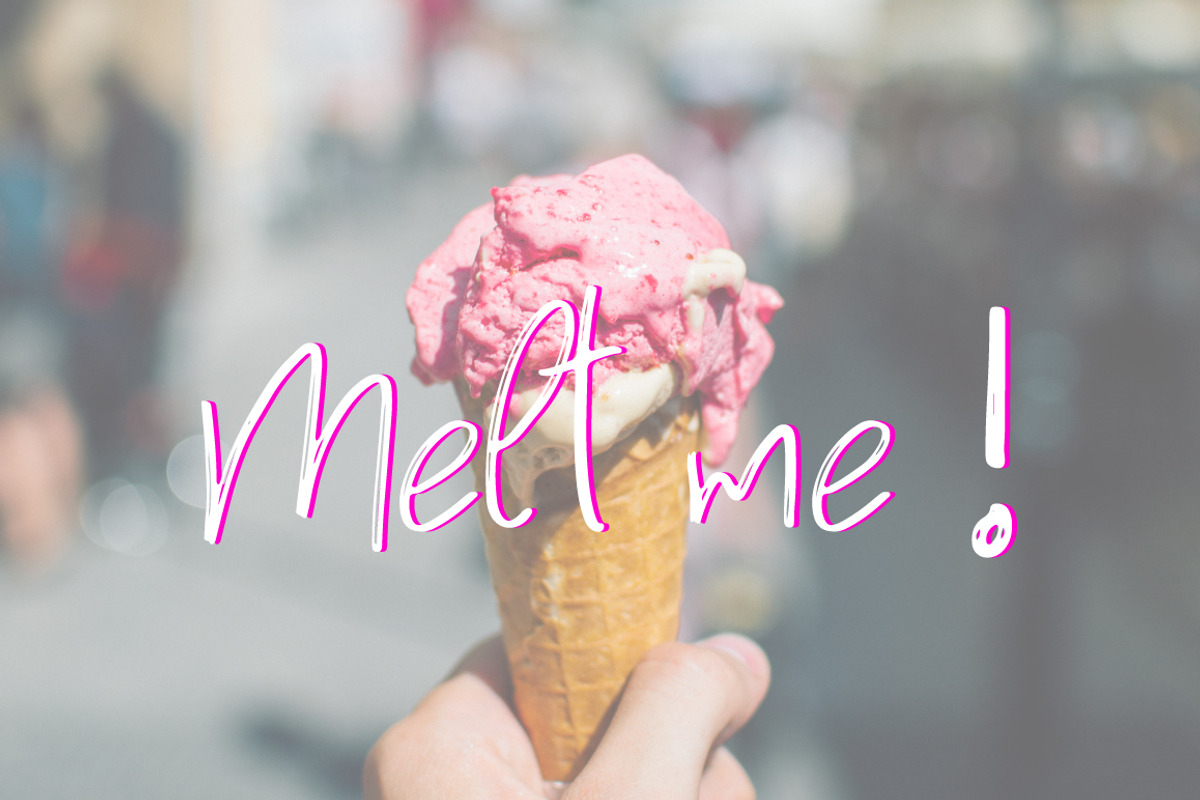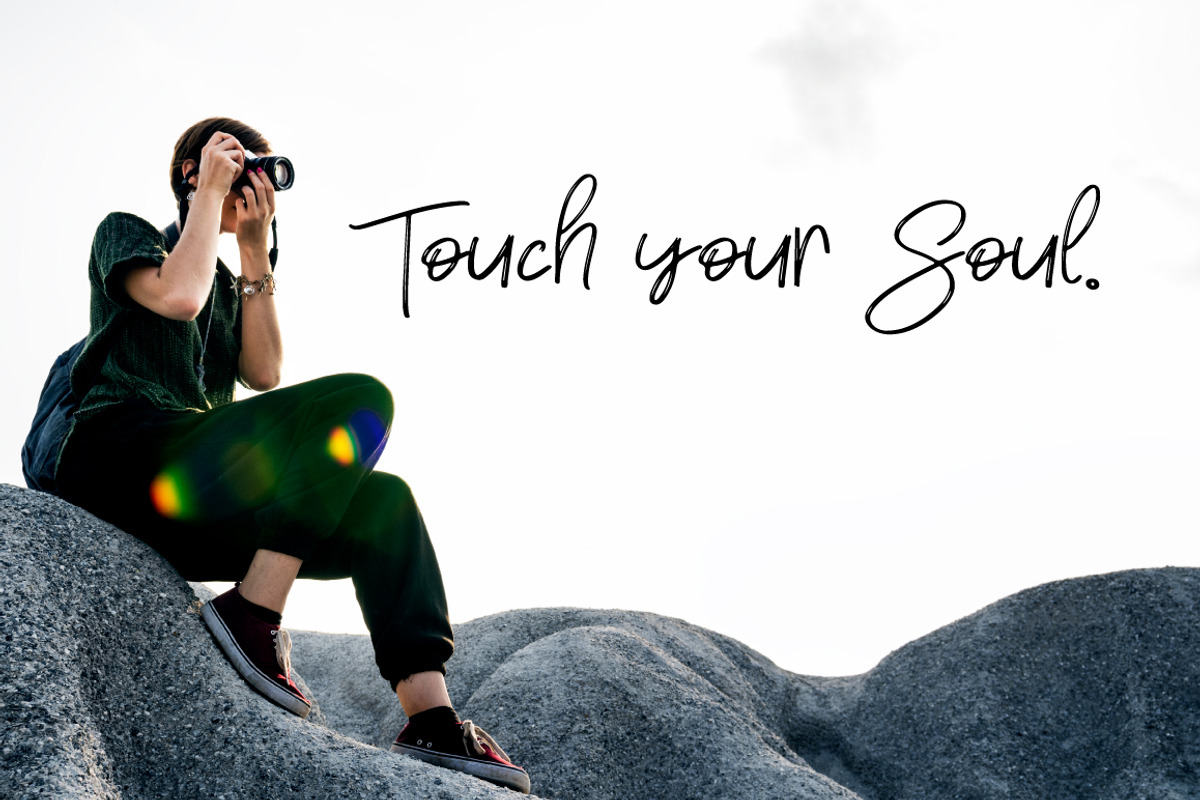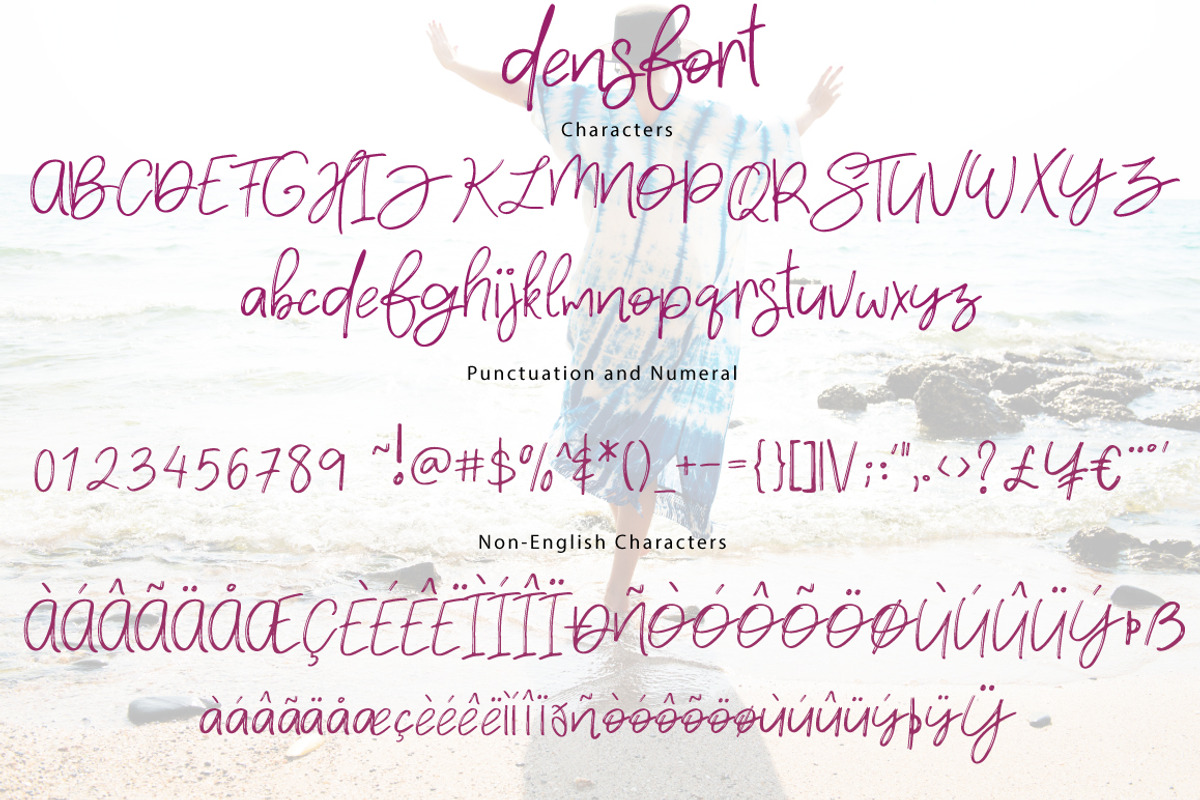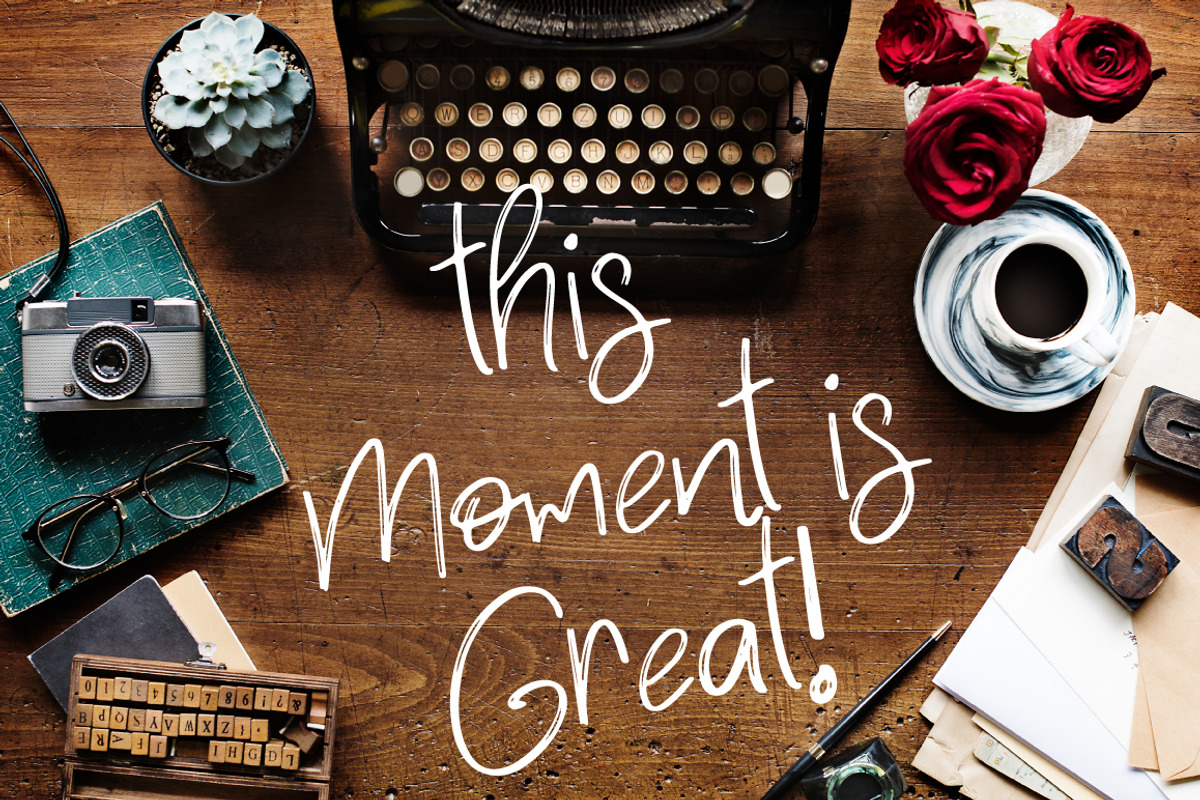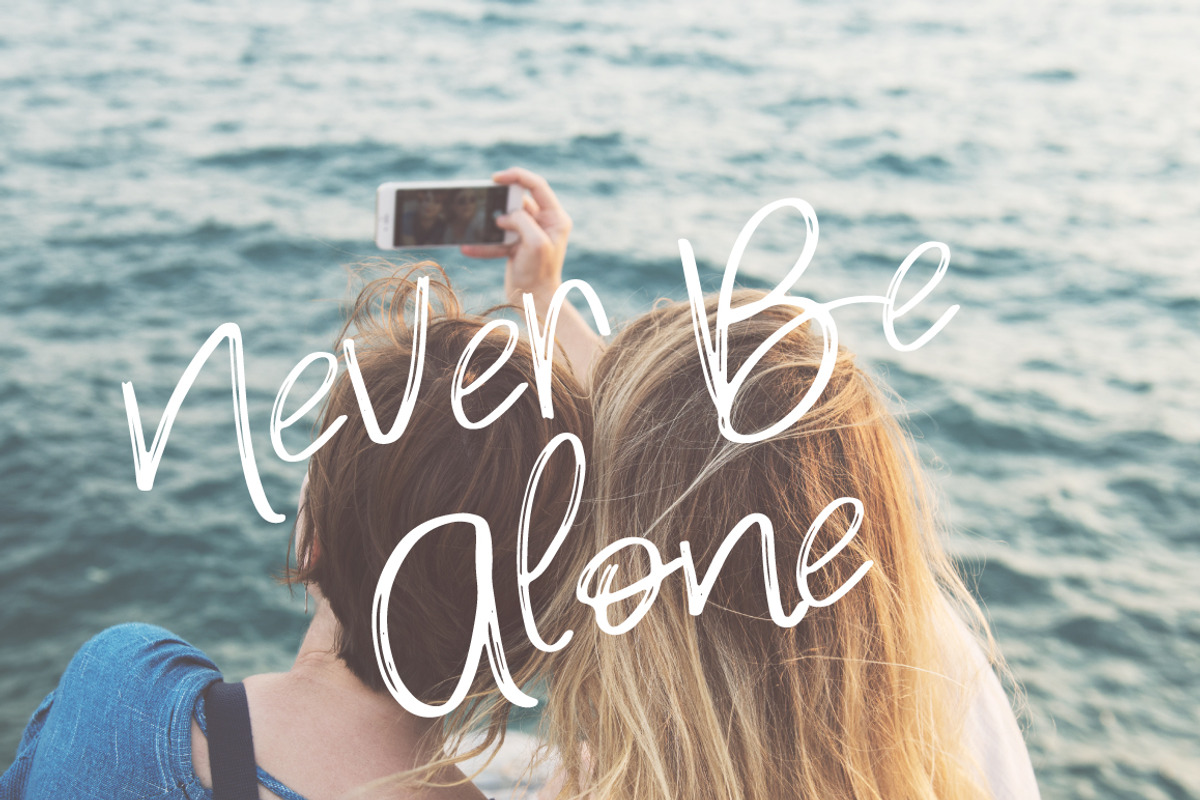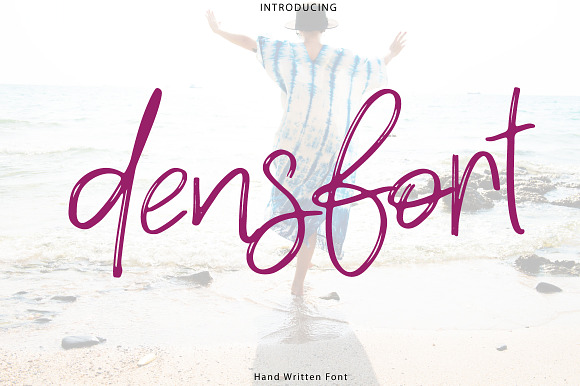
New! densfort | Handwritten Font
densfort | Handwritten font - Fonts
It's handwritten script font.
This font is perfect for wedding invitation or your blog. Also with their help, you can create a logo or beautiful frame for your home. Or just use for your small business, book covers, stationery and more.